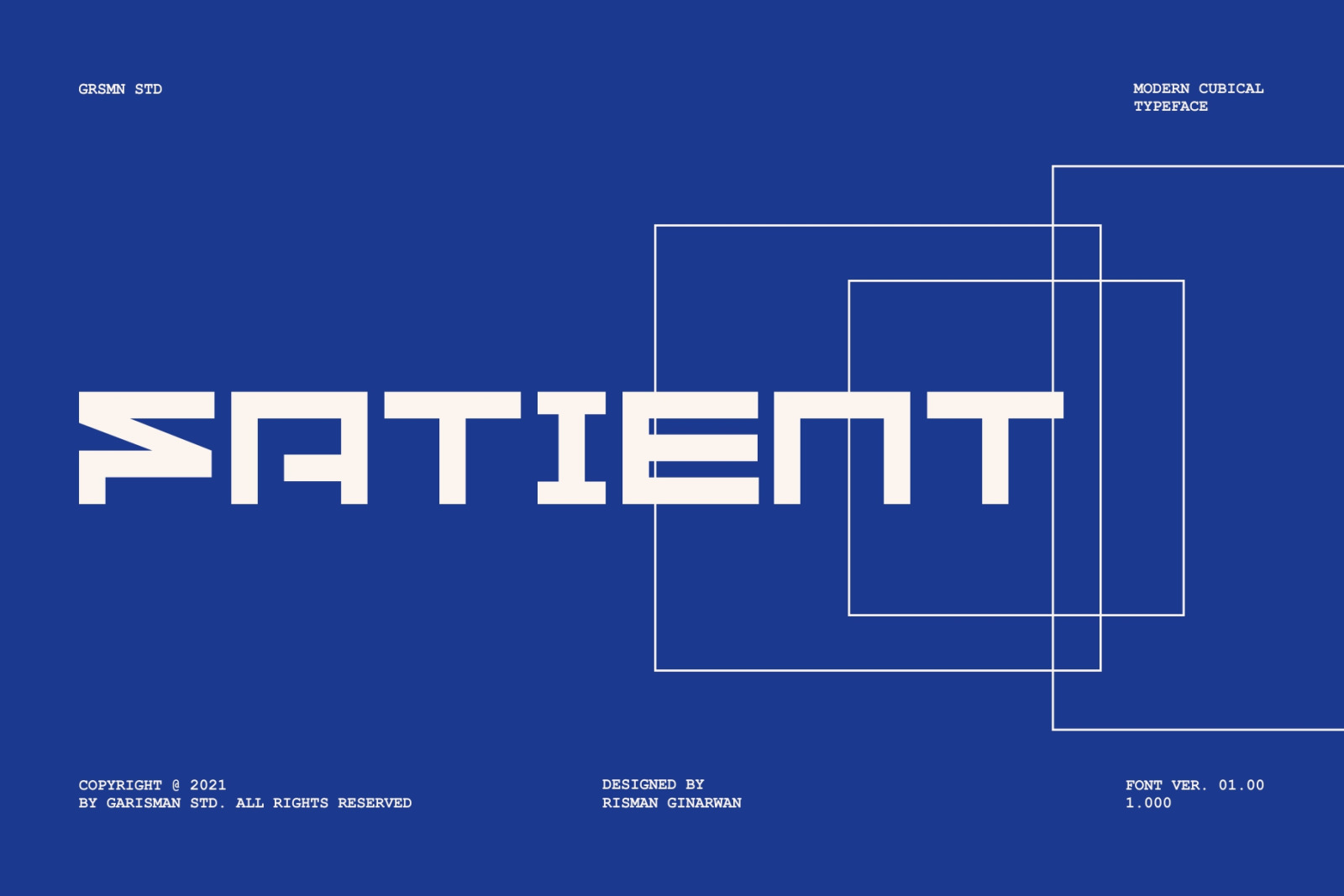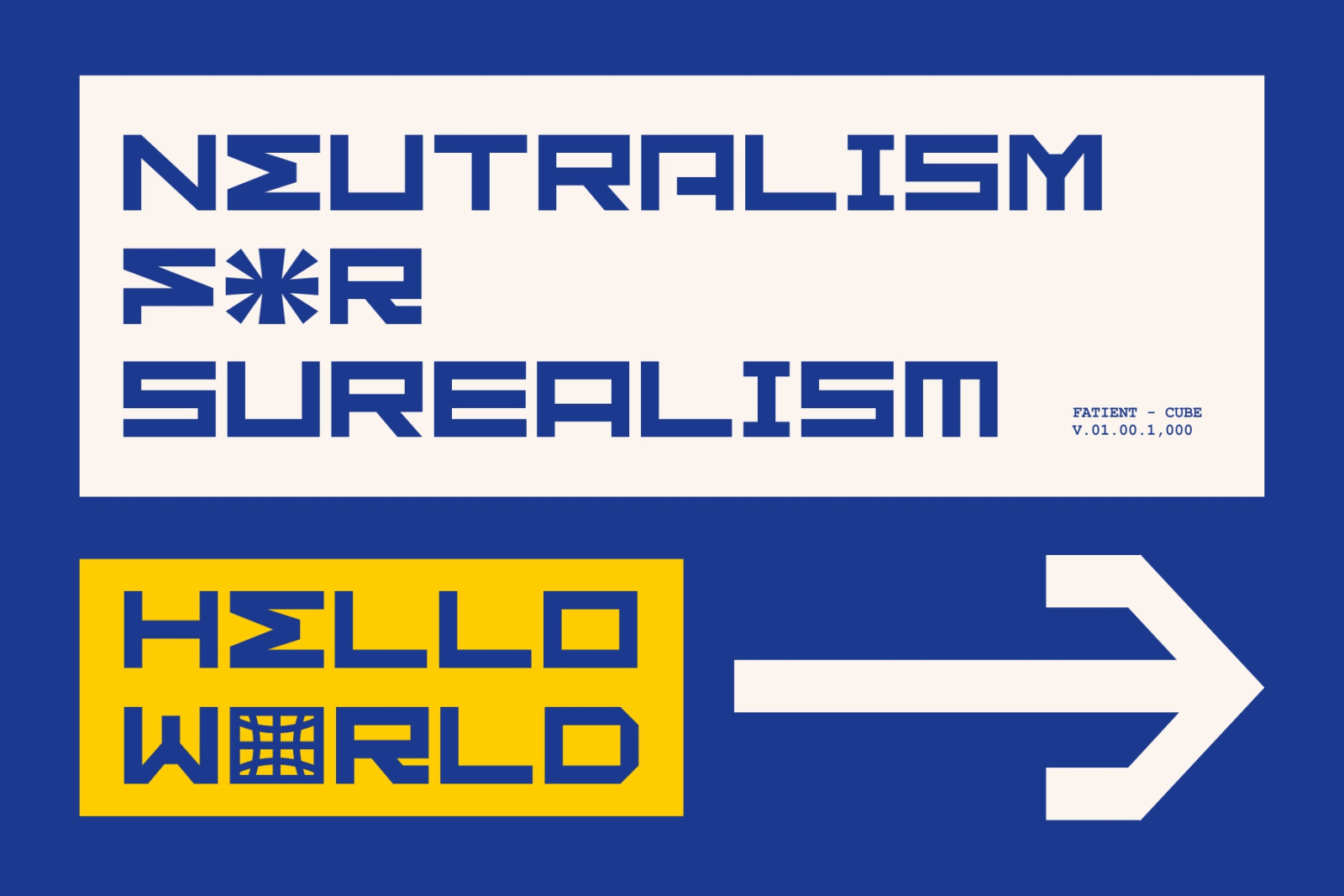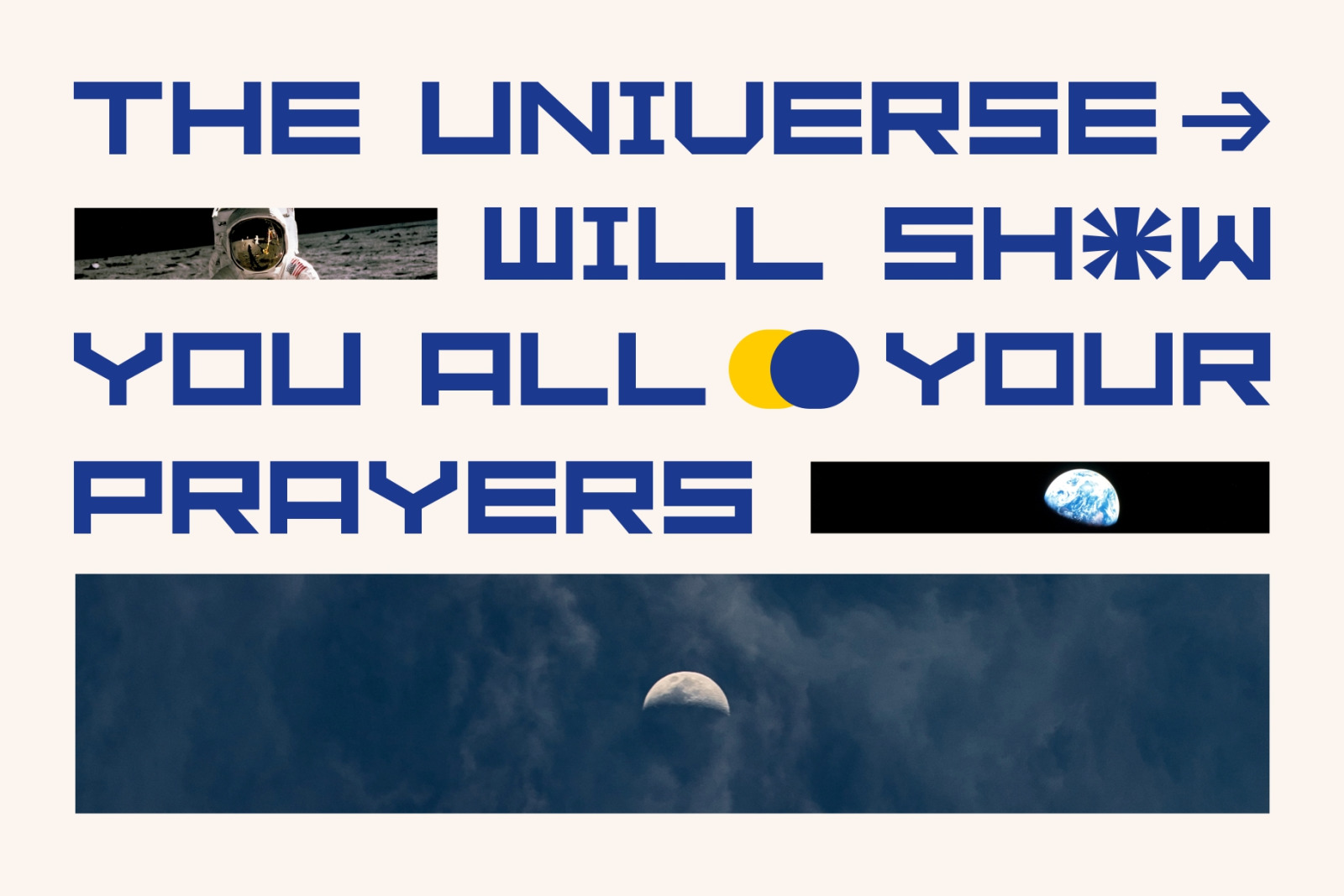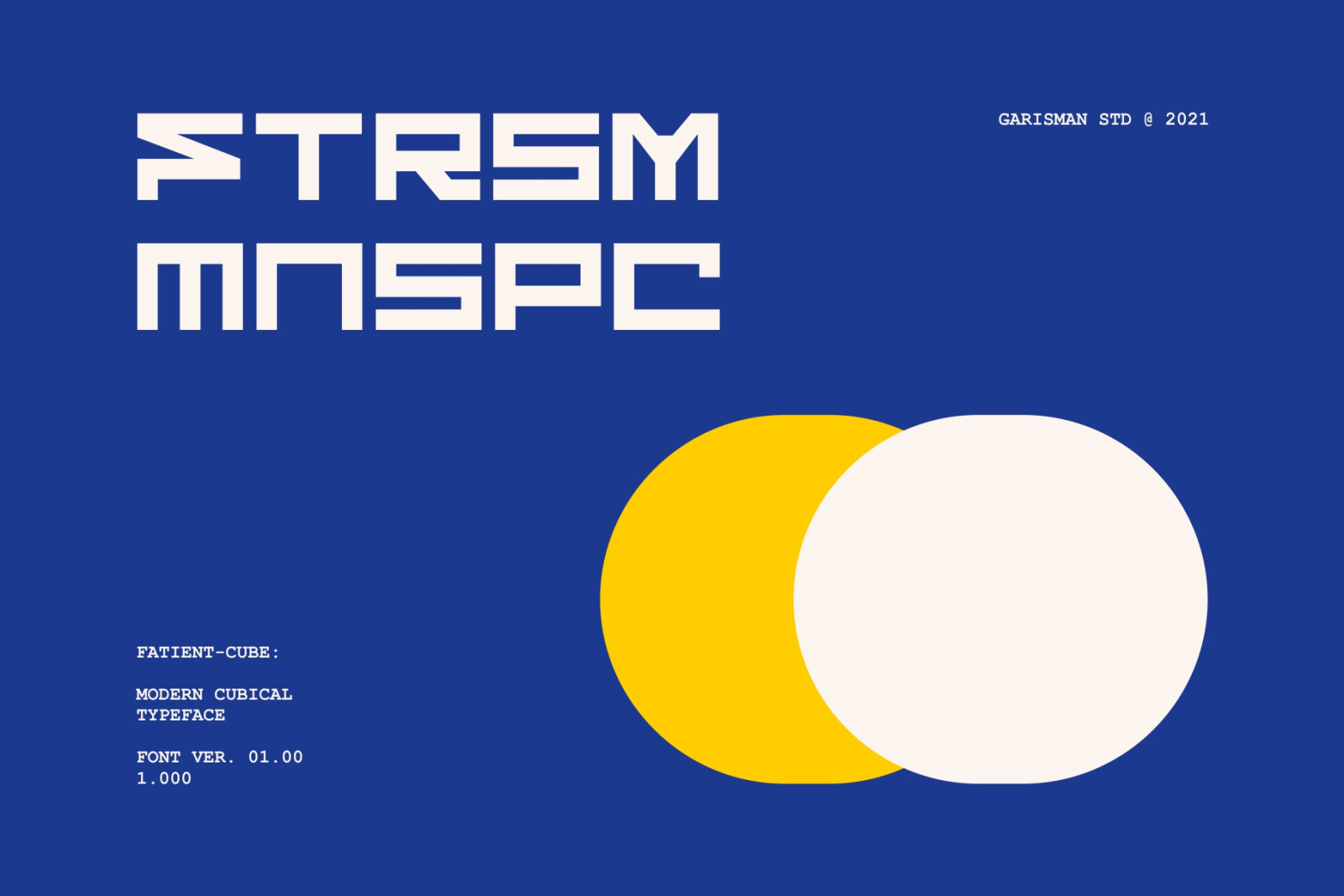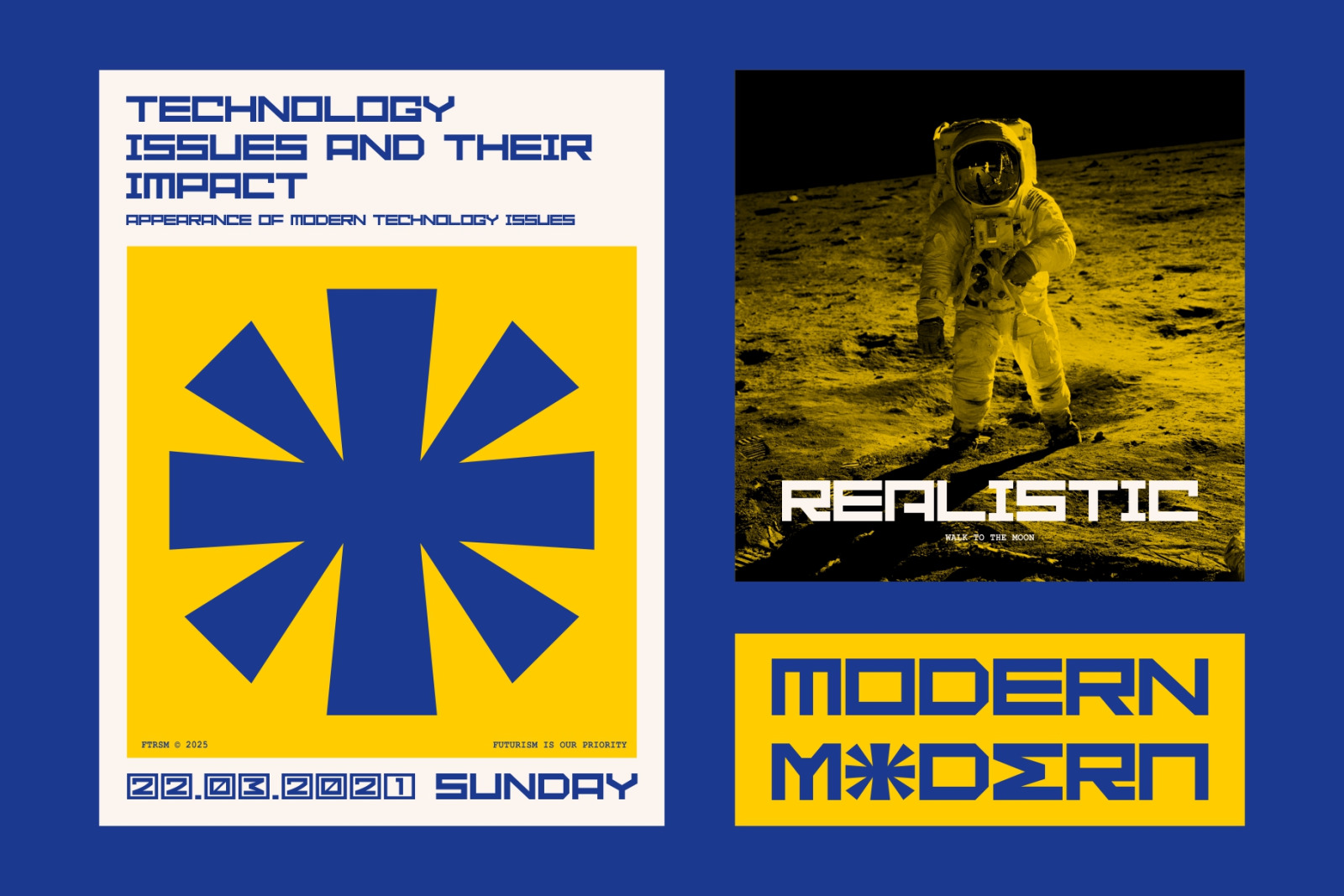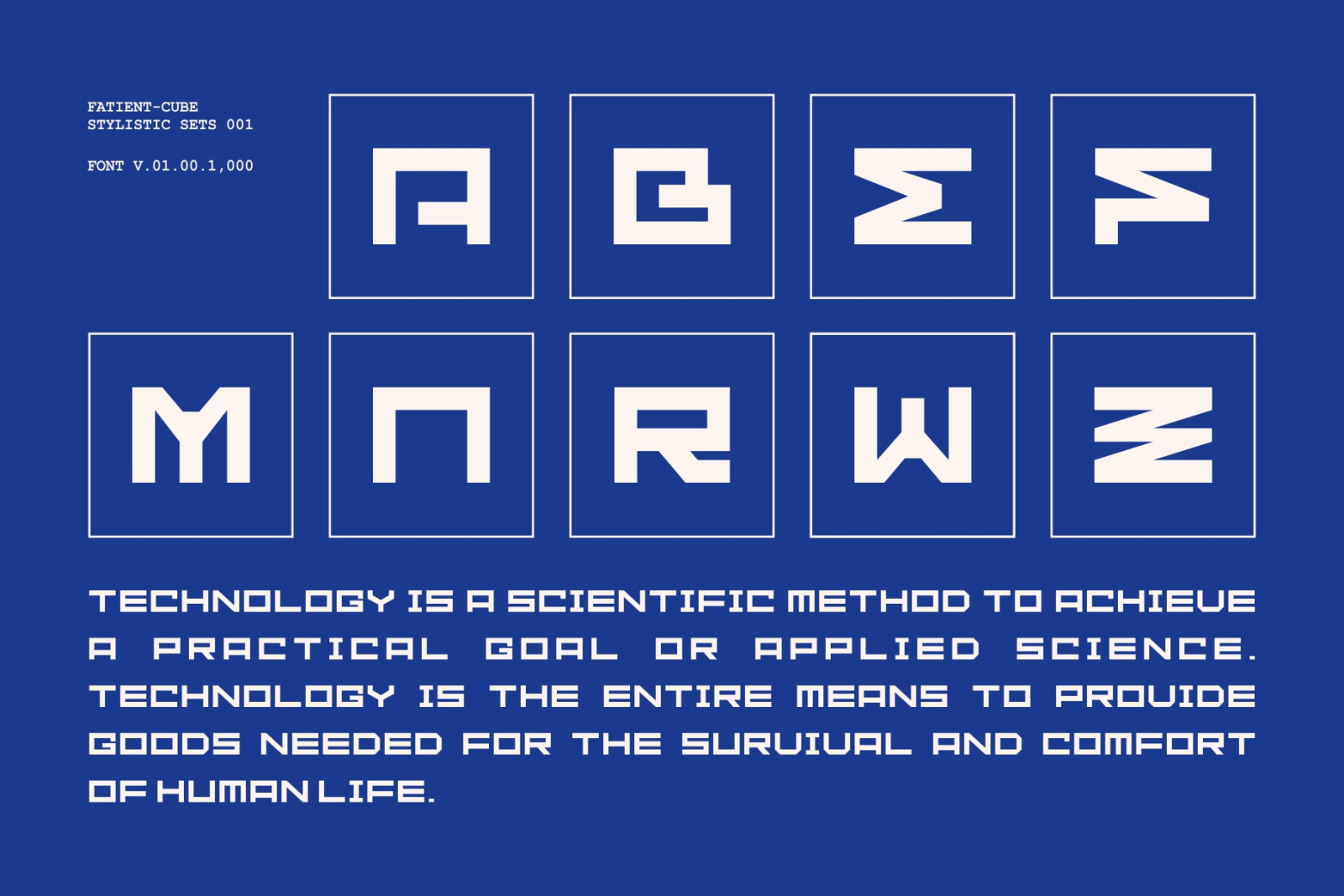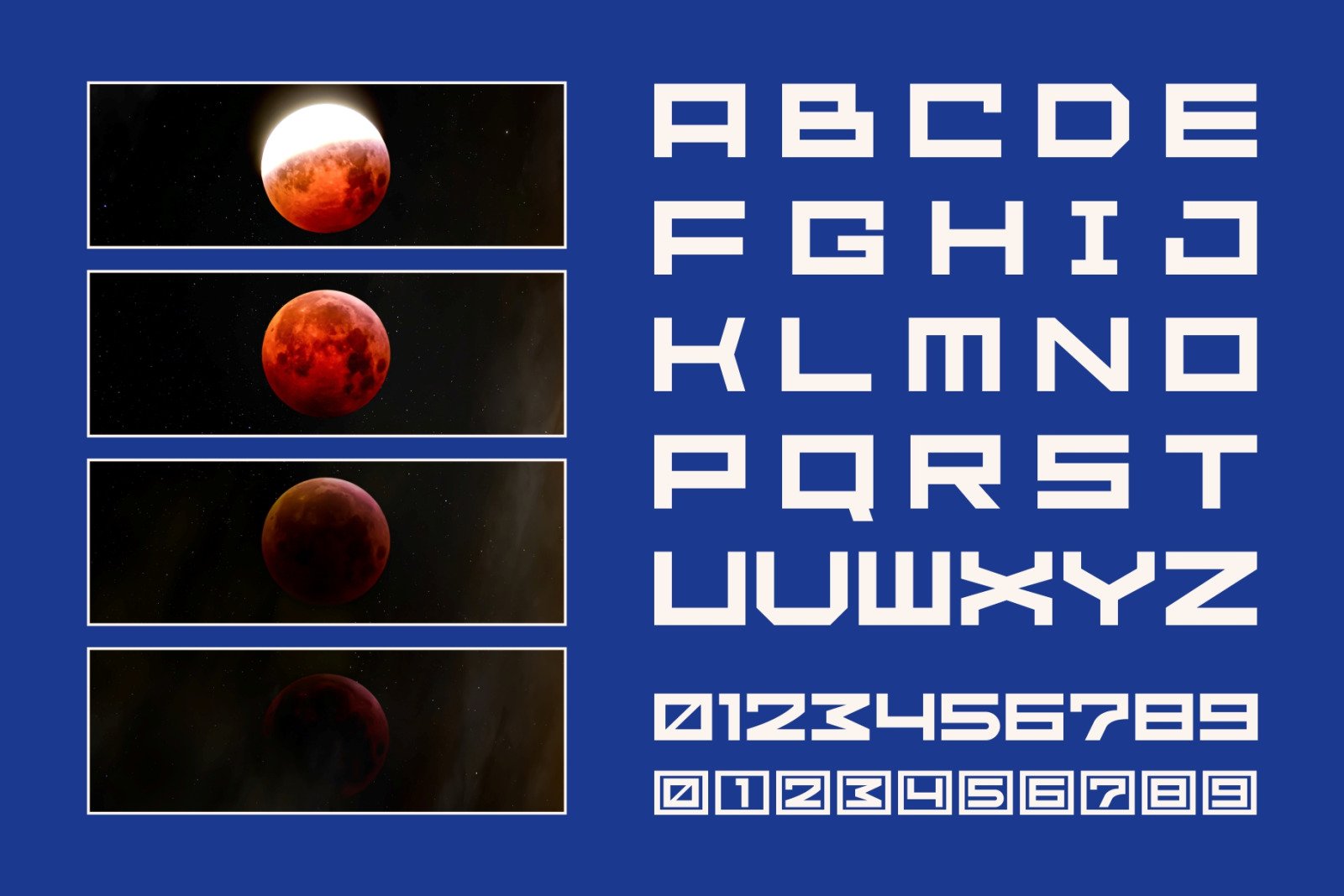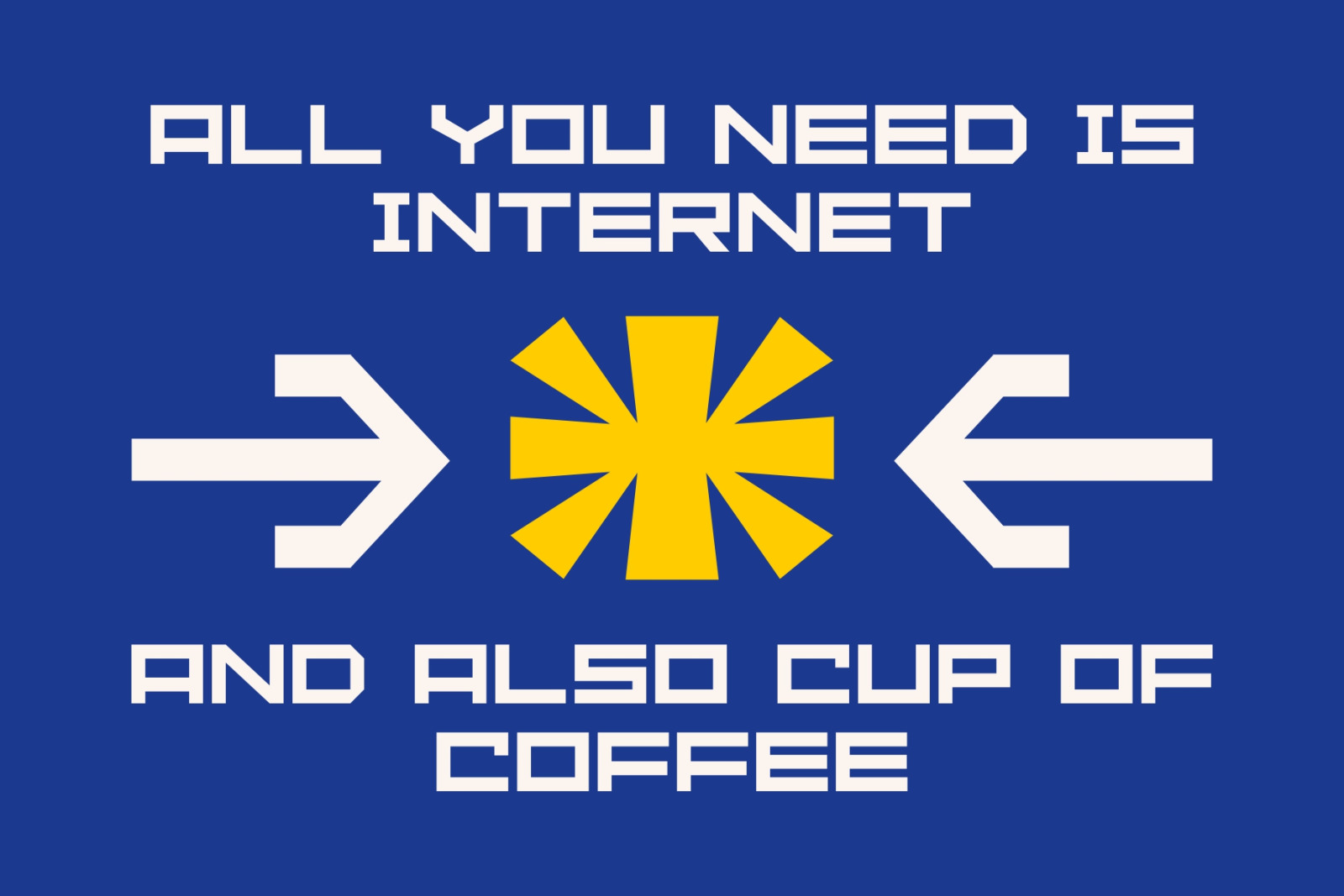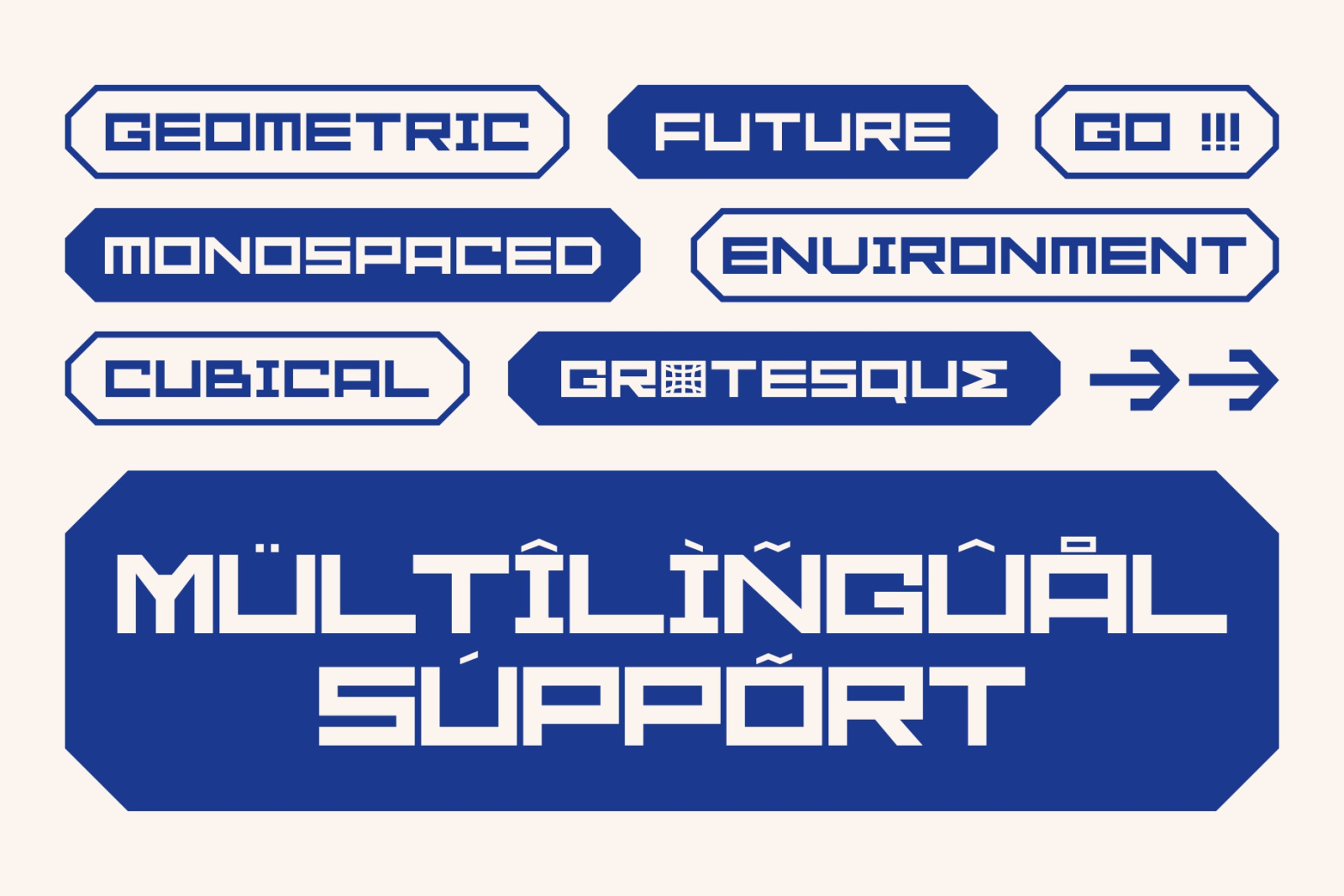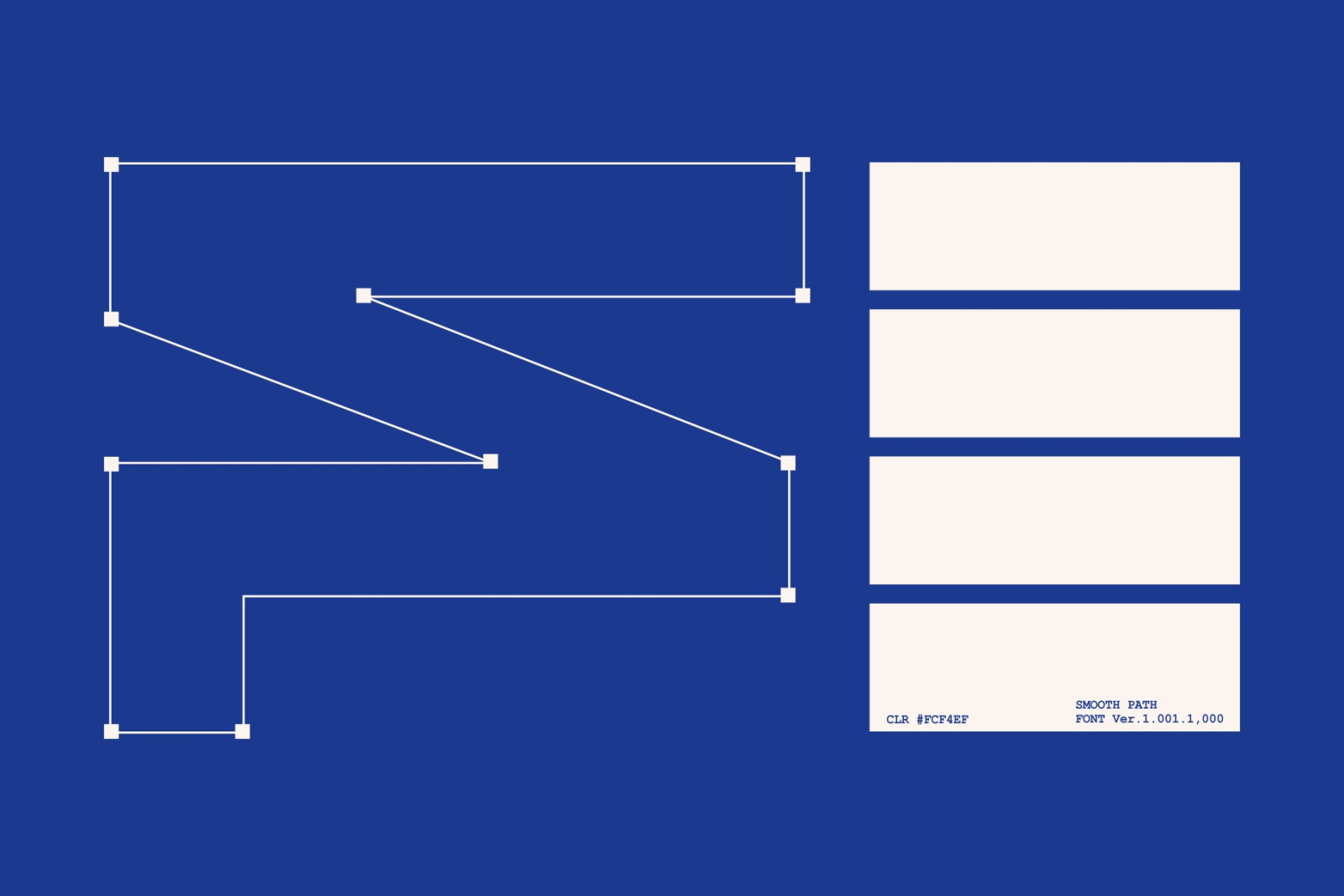
GR Fatient - Modern Cubical Typeface
Welcome to the Future!
Fatient was born in the modern era which was inspired by the letters found in various print and digital media. Comes with a modern and futuristic style that will rock your great design!
It is suitable for you to use in logotype designs, posters, typography, t-shirts, tickets, and other modern designs.
- All caps letter
- Numbers & Punctuation
- Opentype Features: Stylistic Sets